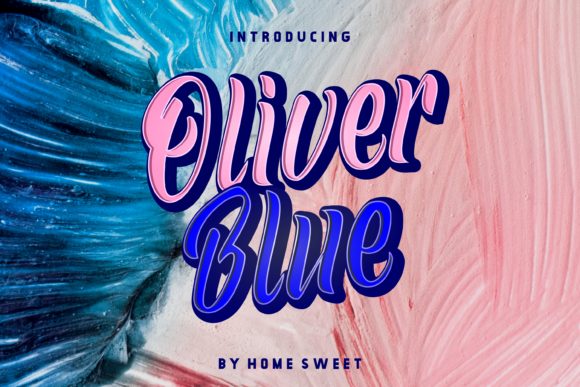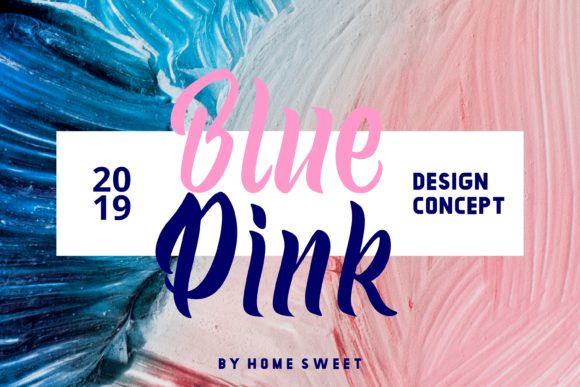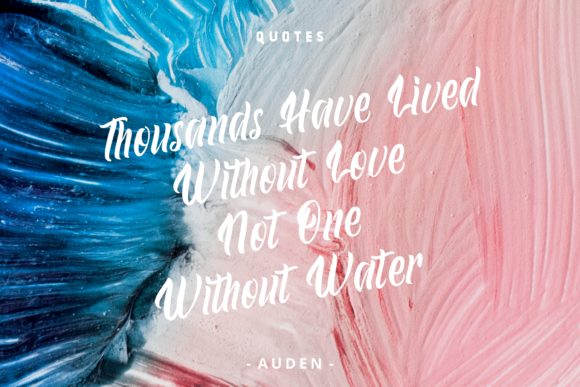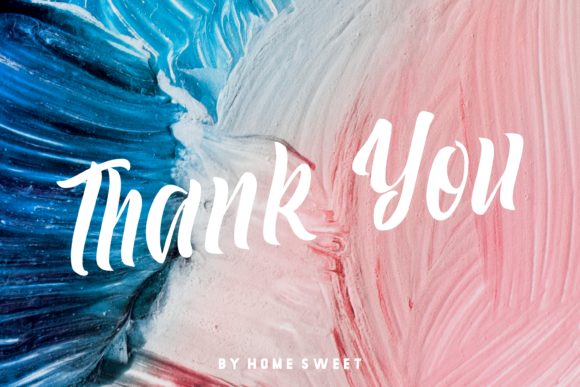
HomeScript FontsOliver Blue Font Script Fonts Oliver Blue Font FacebookXPinterestWhatsApp Oliver Blue Font Poster 2 Oliver Blue Font Poster 3 Oliver Blue Font Poster 4 About Oliver Blue Font Oliver Blue is an amazing handwritten font with a bold feel. Get inspired by its timeless charm! DOWNLOAD ON CREATIVE FABRICAThis font is sold and delivered by Creative Fabrica. Font Canyon may earn a commission if you buy through this link. People also explored Slovenia Font Themoon Font Kronos Font Food Doodle Font Two Fingers Evereast Collection Puttroe Font Sugar Rush Blessed Font 388 0 TagsOliver Blue Font Previous articleJoaquim FontNext articleStella Alpina Font LEAVE A REPLY Cancel reply Comment: Please enter your comment! Name:* Please enter your name here Email:* You have entered an incorrect email address! Please enter your email address here Website: Save my name, email, and website in this browser for the next time I comment. Personal Use Free Sushi Day Personal Use Free Read more about this font Cline Personal Use Free Read more about this font Free Personal Use Free Read more about this font Joystix Monospace Personal Use Free Read more about this font BLOG Top 7 Google Fonts Alternatives for Faster and Privacy-Friendly Web Design (2025) Top 7 Google Fonts Alternatives for Faster and Privacy-Friendly Web Design (2025) When it comes to web typography, Google Fonts has long been the go-to... How to Install and Use Fonts on Windows, macOS, and Web Projects Fonts That Capture the Spirit of New York City Using Fonts in Digital Marketing: Tips to Strengthen Your Brand Identity